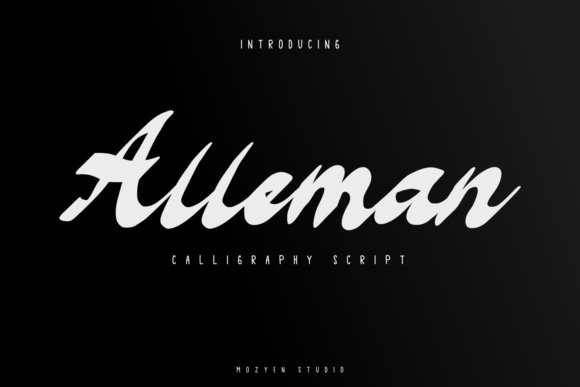
About Alleman Font
Alleman is a beautiful, chic, and distinct script font that adds a touch of elegance and style to any design project. With its lovely and unique style, Alleman stands out and has the potential to enhance any creation in your fonts’ library.
The chic and distinct characteristics of Alleman make it a versatile font that can be used in a variety of contexts. Whether you’re working on branding materials, wedding invitations, logos, packaging, or any other creative project, Alleman brings an element of sophistication and visual appeal.
The carefully crafted letterforms of Alleman give it a refined and polished look. Each character is designed with precision and attention to detail, resulting in a font that is visually pleasing and pleasing to the eye. The smooth curves and elegant strokes of Alleman create a harmonious flow, adding a sense of gracefulness to your designs.
One of the strengths of Alleman is its ability to adapt to different design themes and topics. Whether you’re working on a fashion-related project, an upscale event invitation, or a luxurious branding concept, Alleman can effortlessly elevate your designs and convey a sense of sophistication.
Adding Alleman to your fonts’ library opens up a world of possibilities for creative expression. Its potential to enhance any creation is undeniable, making it a valuable asset for designers and creatives. Whether you’re aiming for a minimalistic and modern look or a more decorative and ornate style, Alleman can effortlessly accommodate your vision.
In conclusion, Alleman is a beautiful, chic, and distinct script font that brings elegance and style to your designs. With its carefully crafted letterforms and versatile nature, Alleman has the potential to elevate any creation in your fonts’ library. Embrace the unique style of Alleman and let it add sophistication and visual appeal to your design projects.